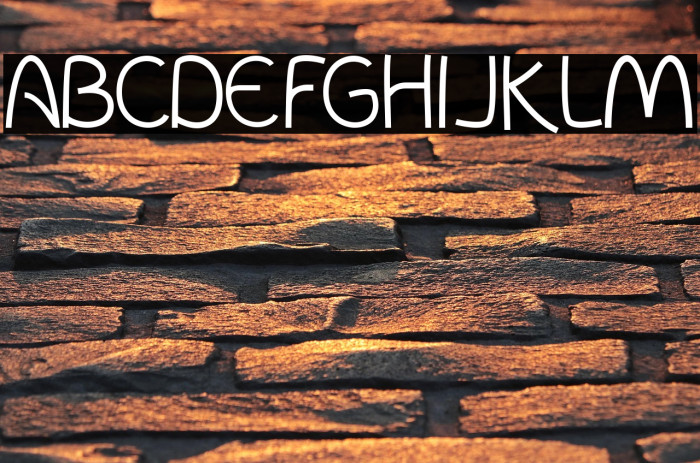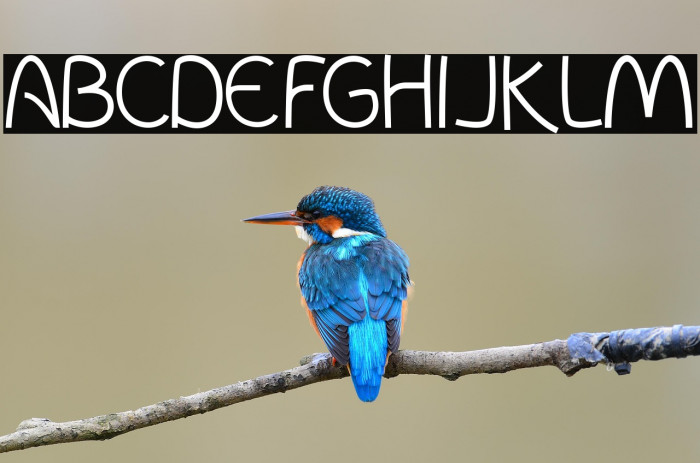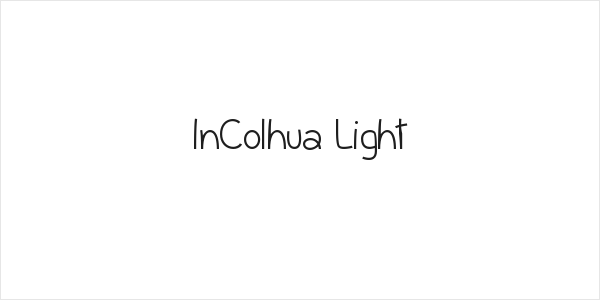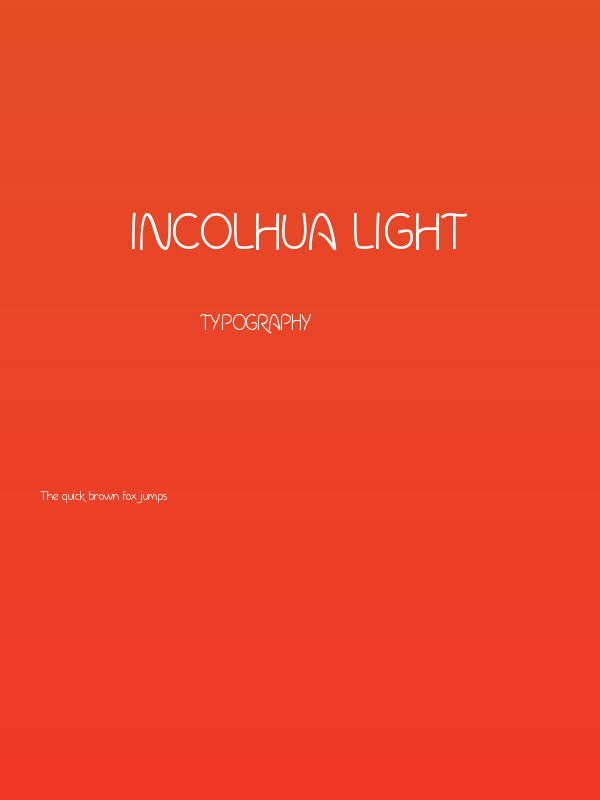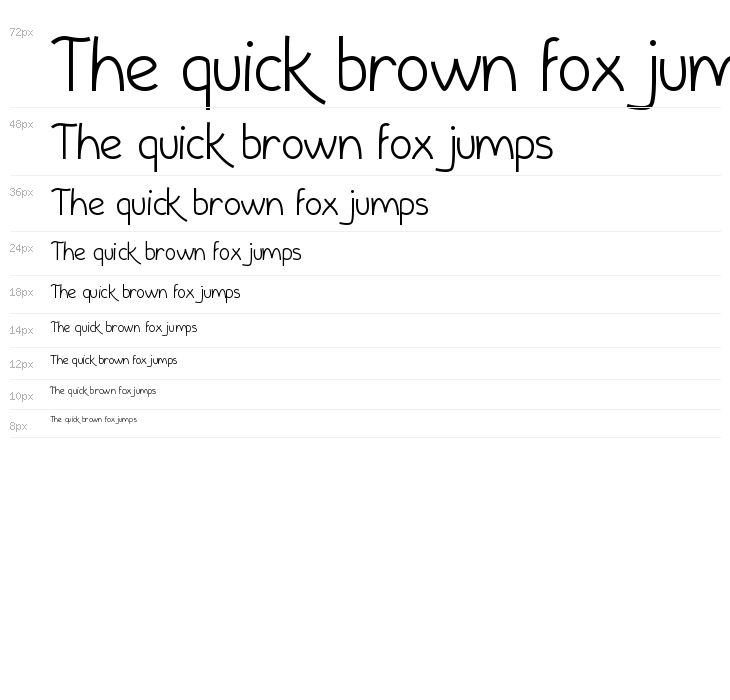
InColhua Light Font
InColhua Light Description
This font features a playful and whimsical design with a handwritten style. The characters are slightly rounded with a casual, friendly appearance. The uppercase and lowercase letters maintain a consistent flow, while the numerals and special characters complement the overall aesthetic. The strokes are uniform, providing a clean and approachable look. This font is ideal for projects that require a personal touch or a relaxed vibe, making it suitable for creative and informal applications.
| Proposed Projects | Ideal for greeting cards, children's books, casual branding, and creative social media graphics. |